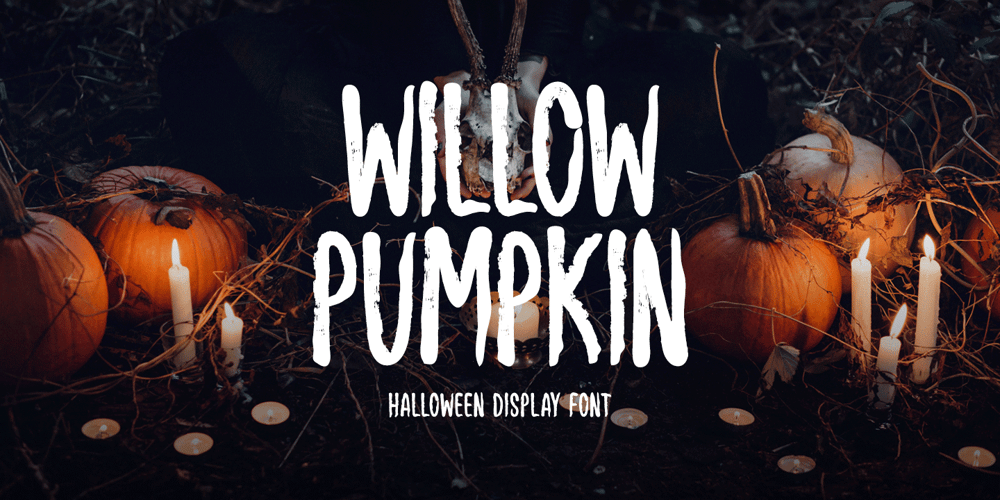
Willow Pumpkin Font Family was designed by Md Shohail Bhuian and published by Seemly Fonts. Willow Pumpkin contains 1 styles and family package options. Willow Pumpkin is a creepy and dark-looking display font. It is perfectly suitable for any Halloween-related project or crafty idea! The only limit is your imagination.